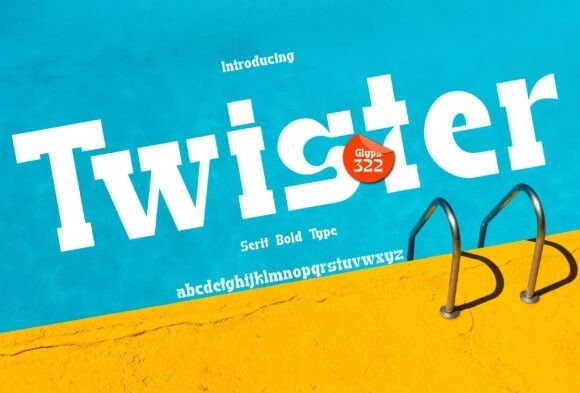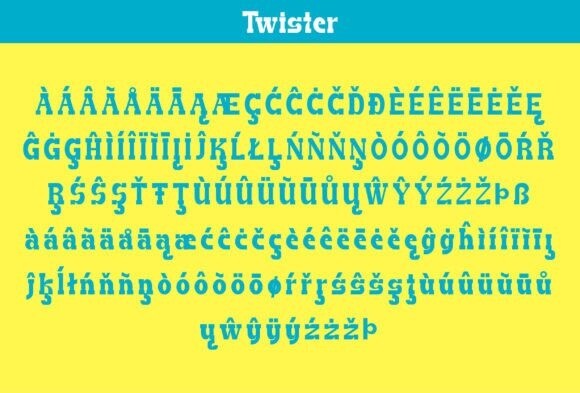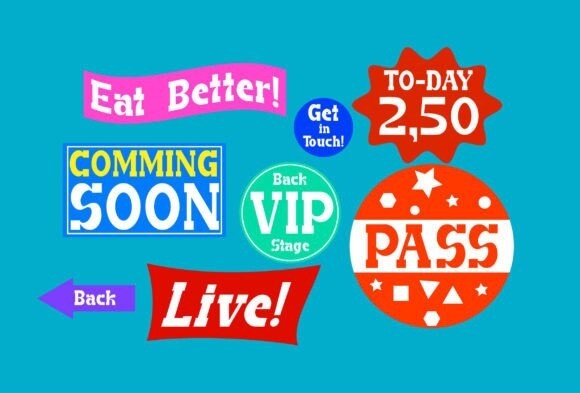
Twister Font
Twister Font which has a strong and funny-looking design. The font looks like serif but thick so it seems more funny. Twister supports 69 languages ​​that you can use in multilingual designs and is suitable for use in various media, book covers, posters, typography, promotions, and other digital media.